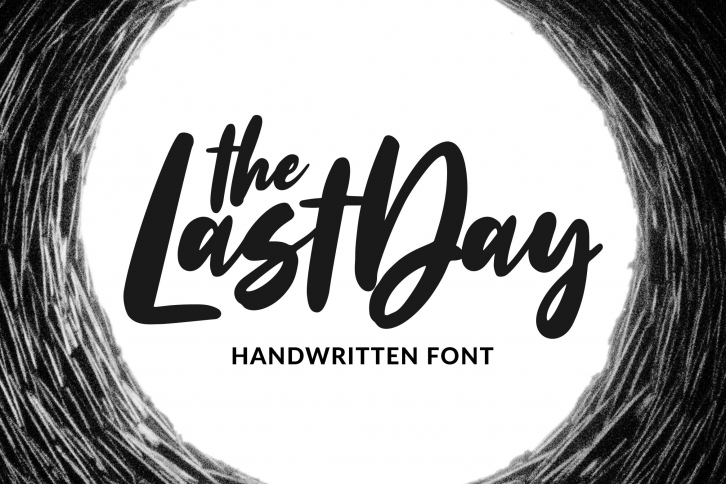
The Last Day - Handwritten Font Download
Introducing The Last Day Handwritten Font, script with natural dry brush strokes make it beautiful, and the stroke of hand quickly.
The Last Day is perfect for signature, branding, wedding, fashion, photography title, poster, social media, ad banner, book cover, packaging, handwritten quotes, greeting cards and advertising.
All fonts containing upper & lowercase characters, numerals, punctuation and multilingual support.